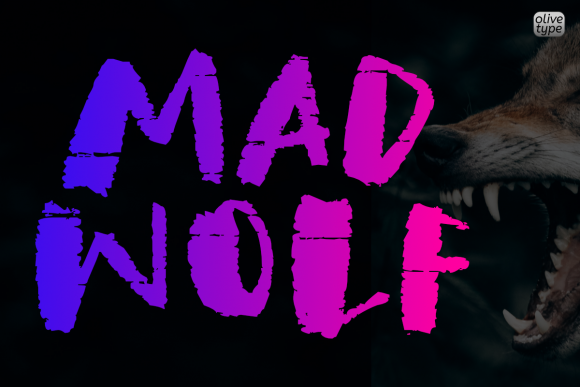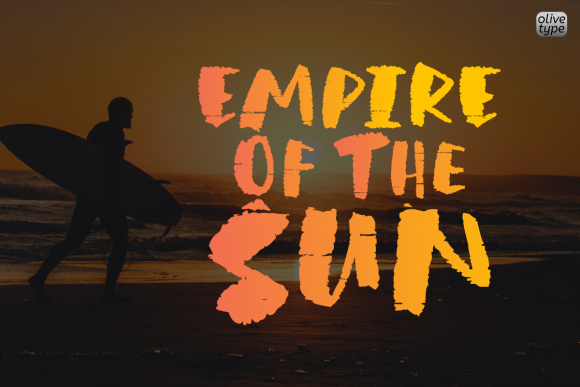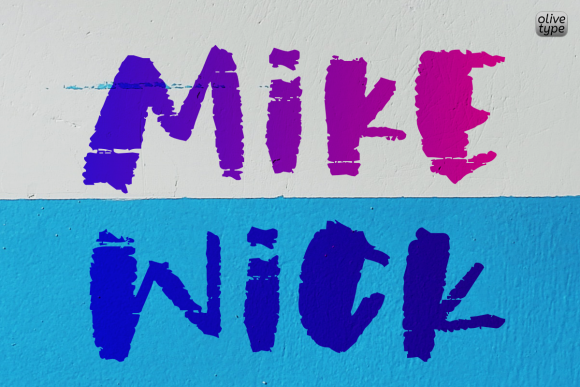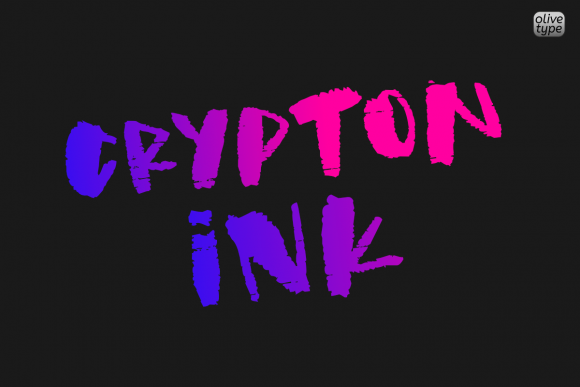
Introduction to Crypton Ink Font
Crypton Ink is a cool and trendy styled display font.
It will look stunning on any poster flyer or print Use this font for your designs and explore its endless possibilities.